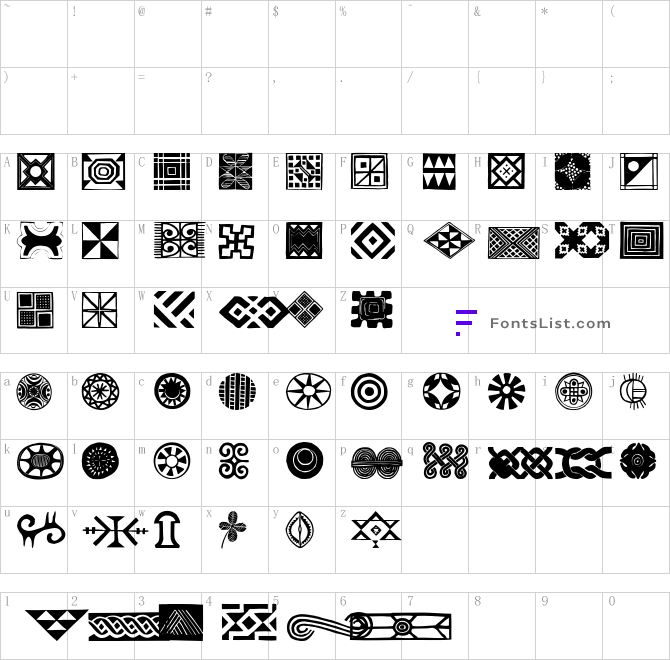
- Font Name:AfricanOrnamentsOne
AfricanOrnamentsOne-copy-2-.ttf is a very beautiful artistic font, AfricanOrnamentsOne-copy-2-.ttf is widely used in the design and printing of various books and pictures,AfricanOrnamentsOne-copy-2-.ttf has a strong visual impact,AfricanOrnamentsOne-copy-2-.ttf is a commonly used font in newspapers, magazines and books, and is used in posters, e-commerce Poster design, store design, logo design, font design and other fields.AfricanOrnamentsOne-copy-2-.